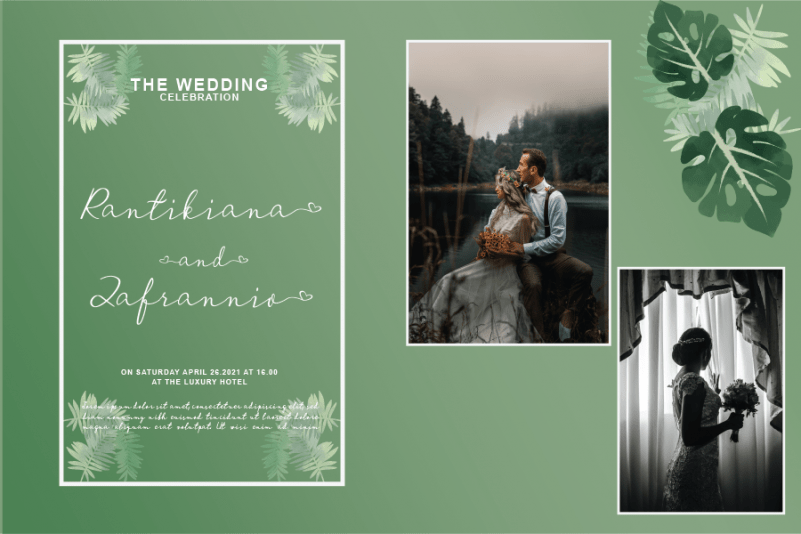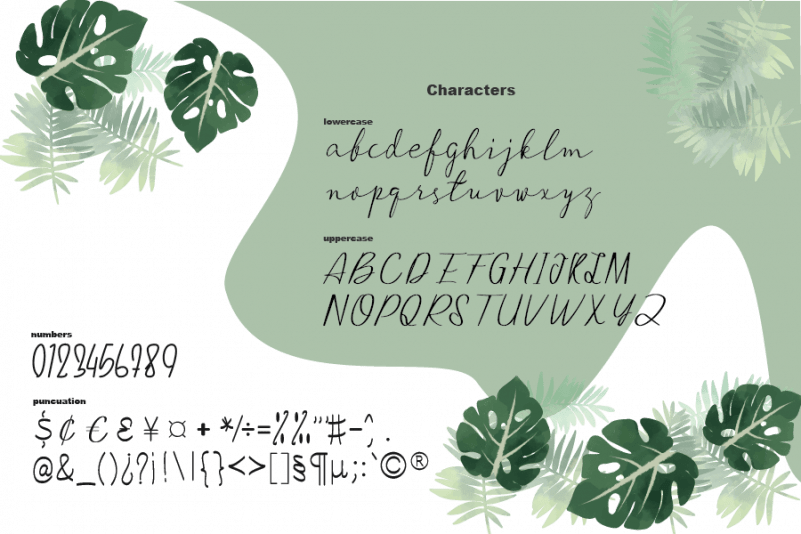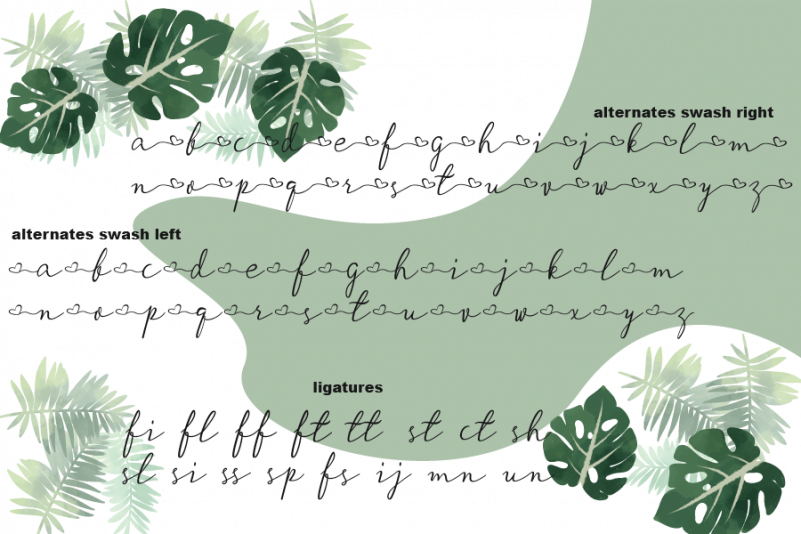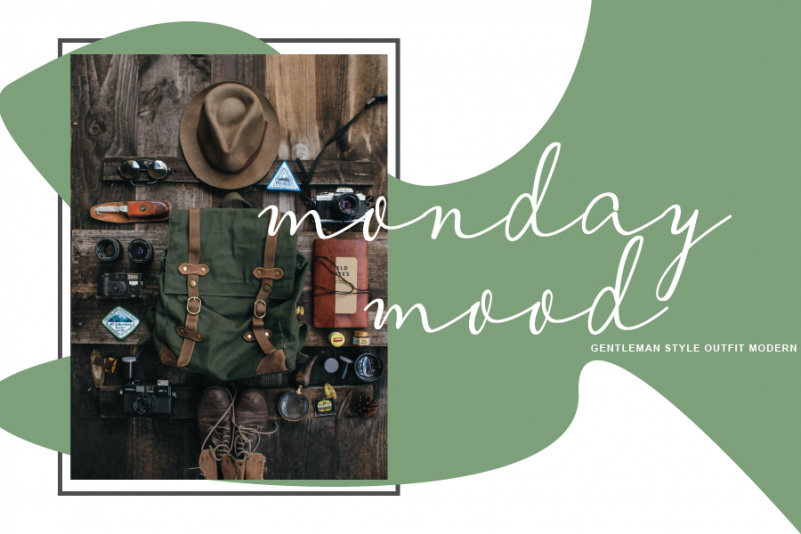
The Lovely Script Font
The Lovely font is a well balanced, refined script font that emanates sophistication and elegance. Its stylish alternates and ligatures make this font the perfect match for any project.